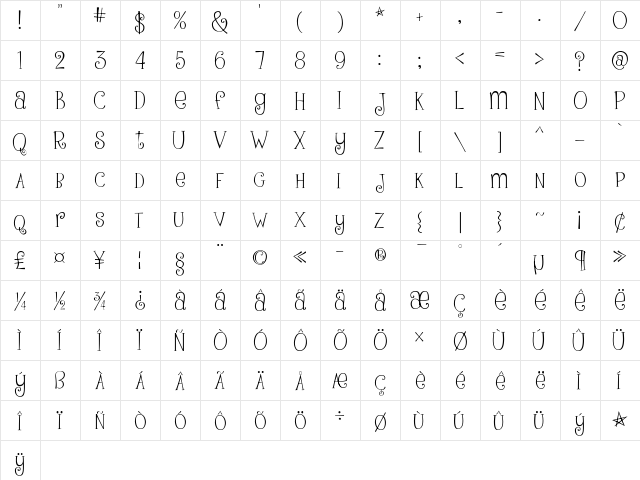
Pink Ladies and Peanutbutte Regular
Design Context for Pink Ladies and Peanutbutte Typeface
Pink Ladies and Peanutbutte is a composed and adaptable typeface that performs quietly and consistently across a wide range of design contexts.